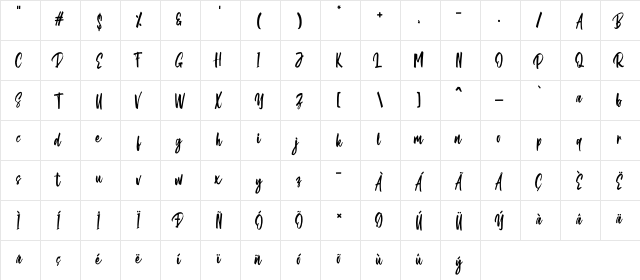
Strongwild Demo Regular
| Designer | Farul Arjianto |
Design Context for Strongwild Demo Typeface
Strongwild Demo is a composed and adaptable typeface that performs quietly and consistently across a wide range of design contexts.